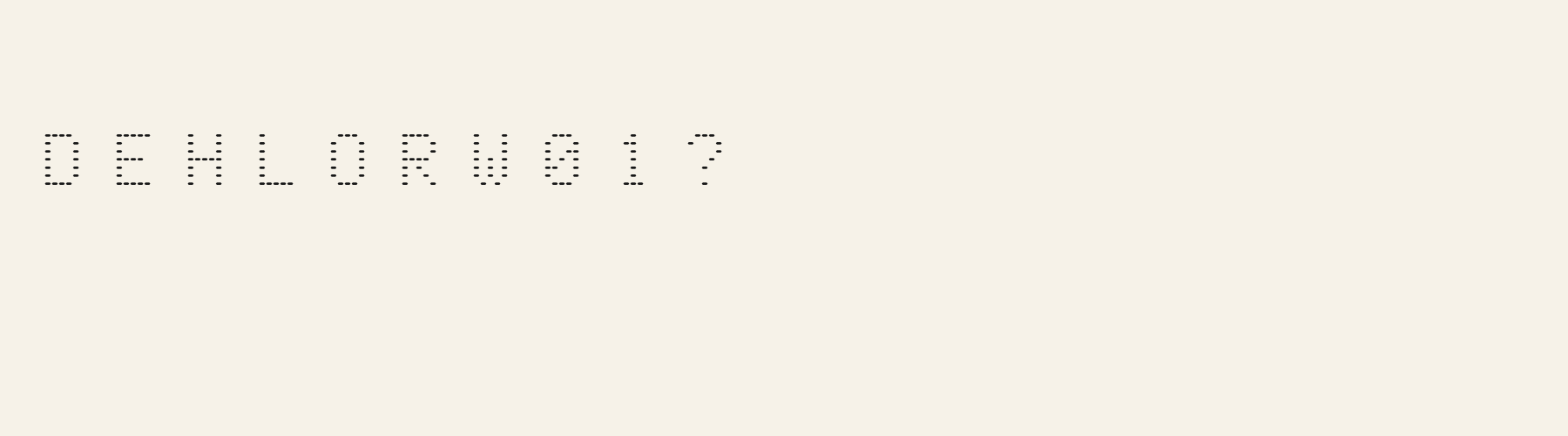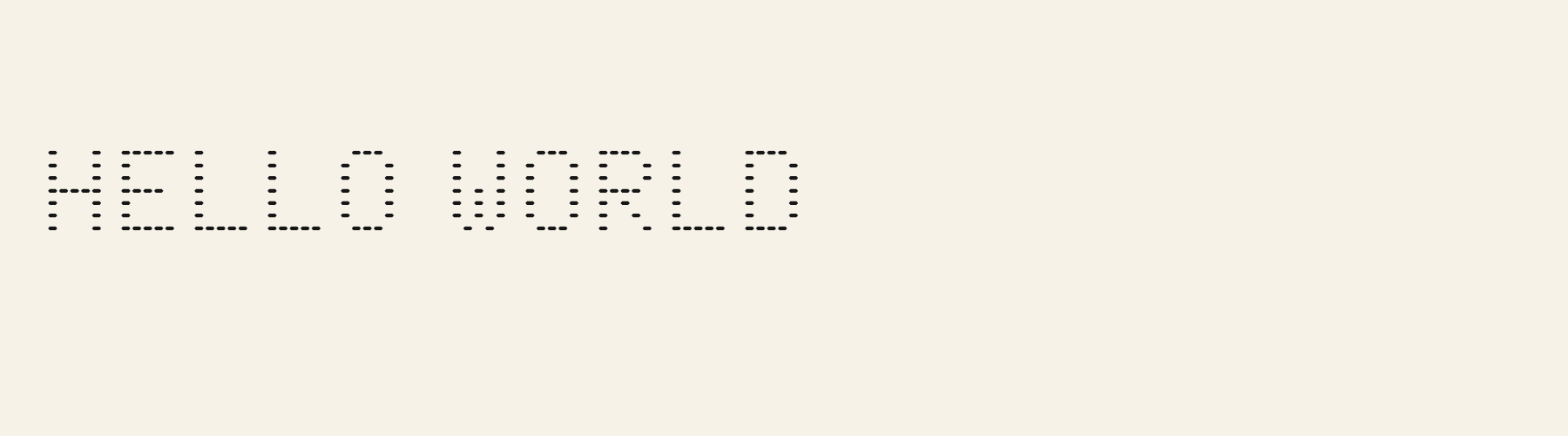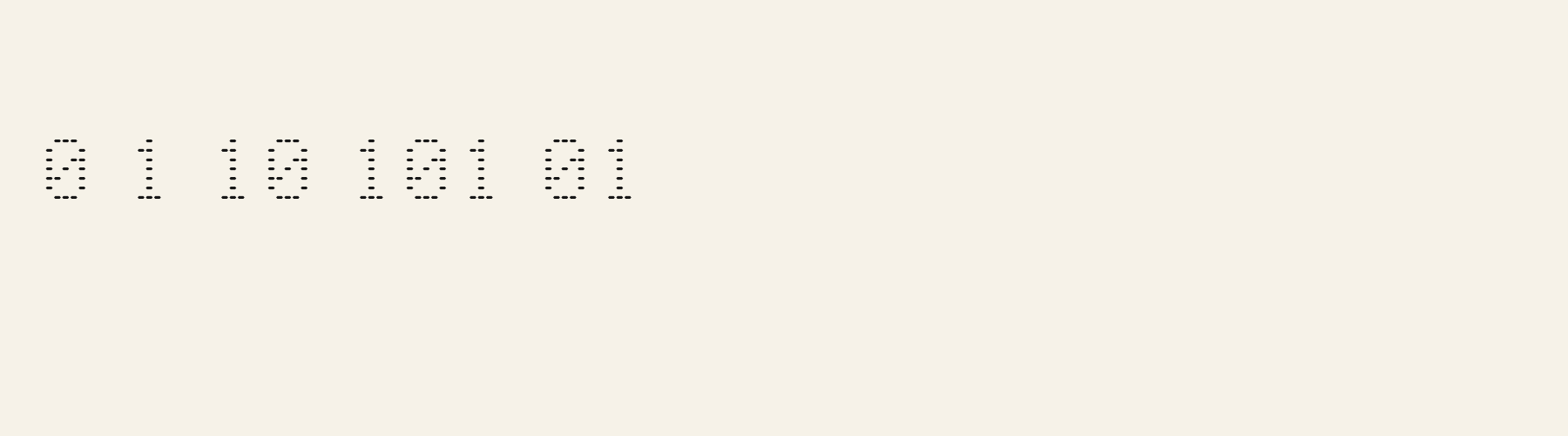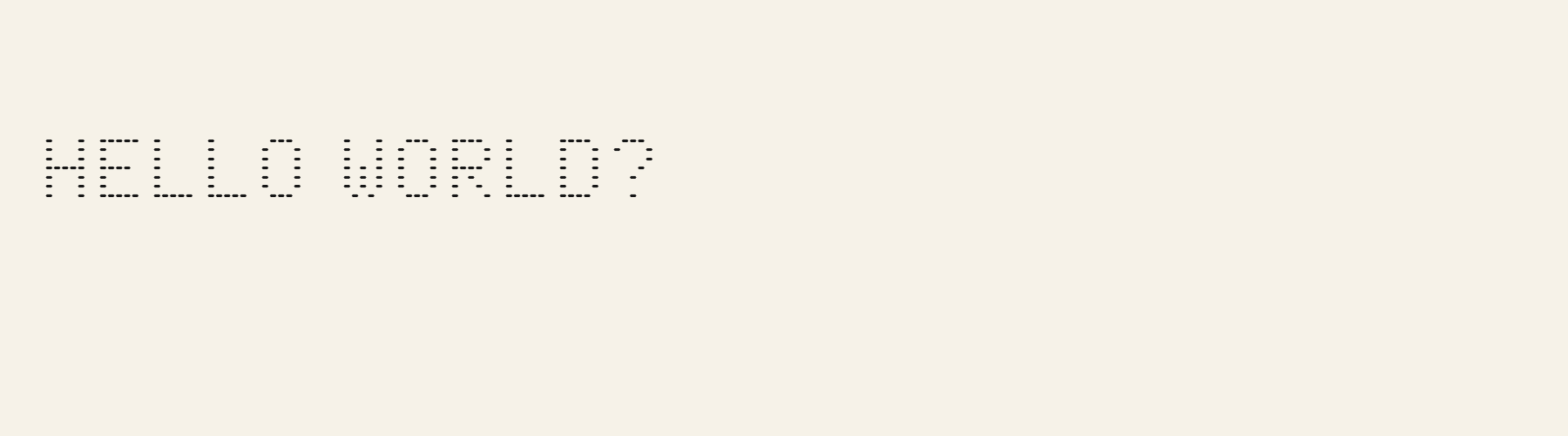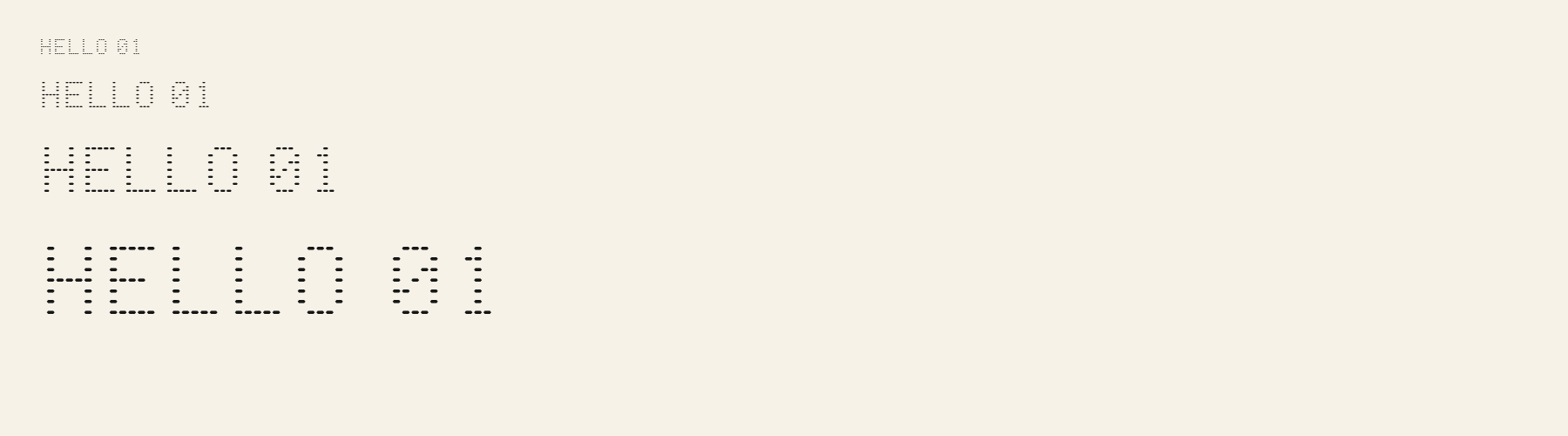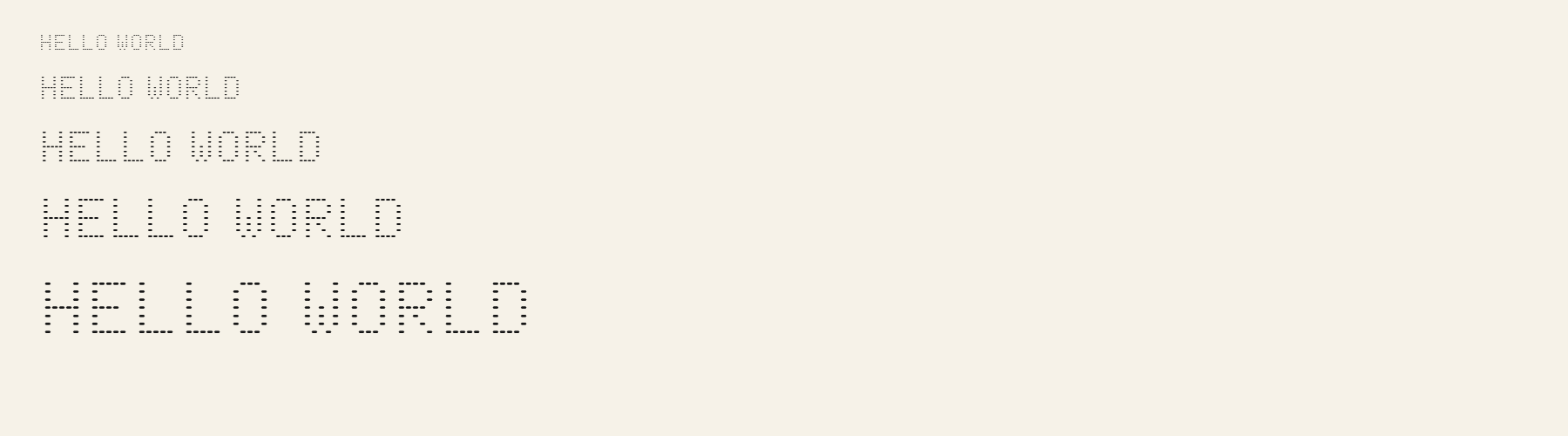
Pixel Lcd Segment Stacked Dash Display Font
Pixel Lcd Segment draws its letters with short horizontal dashes, leaving clear gaps along stems, bowls and crossbars.
Stacked Dash Display Letterforms
Pixel Lcd Segment draws its letters with short horizontal dashes, leaving clear gaps along stems, bowls and crossbars. The O forms a tall oval with inset corners, while the H stretches a dashed crossbar between separated vertical stacks. The R breaks its descending leg into marks that step outward from the bowl. Rounded dash ends give these rigid arrangements a softer edge. Broad spacing and sparse ink keep the line airy, even in capitals. The result has a quiet electronic character suited to instrument readouts and spare display lettering.
Test your actual Latin wording for the stepped R leg, the central stack in W and the distinction between O and zero. Inspect punctuation and dash gaps after resizing or reversing colors. For other scripts, verify character availability and appearance separately.
Try this face for short headings or device labels, with a plain sans serif handling explanations and supporting text. Its separated dashes and broad spacing offer a clear visual contrast with continuous strokes; proof the combination in your actual layout.
Pixel Lcd Segment: letterforms and layout
Compare smaller and larger previews to inspect the rounded dash ends and gaps between rows. Check whether the central marks of W and the stepped leg of R remain distinct in your intended setting.
Pixel Lcd Segment spreads the words across a wider line, using rounded horizontal dashes with generous vertical gaps. Choose it when the separated marks and airy electronic texture are central to the composition.
Pixel Lcd Segment font in use
Product label. Separated horizontal dashes give a device label an electronic character, with ample empty space around the letter shapes. AFTER HOURS
Poster. The sparse dashed strokes lend a late night event title a restrained electronic mood within a spacious poster composition. SIGNAL LOST
Book or album cover. Rounded dashes and interrupted outlines give a cover title a quiet technological texture that leaves room for surrounding artwork.
About Pixel Lcd Segment
The lowercase is as tall as the capitals: its x-height measures 100% of the cap height, level with the tallest of the 13 pixel fonts. Ascenders on b, d, h, k and l line up with the capitals (100% of their height), and g, j, p, q and y barely drop below the baseline. It sets wide: an average lowercase letter, spacing included, is 92.7% as wide as the capitals are tall (an average capital, 92.7%), 14.3% more than the median for pixel fonts, so the same words take a longer line. The o is an upright oval, 0.67 times as wide as it is tall, and every capital has the same width. O stands exactly as tall as H and sits on the baseline, with no overshoot.
Ink covers 6.7% of each lowercase letter's box (its advance width by the cap height), the lightest of all 13 pixel fonts. Strokes change thickness with direction: the sides of o and O are 2.5 times as thick as their tops and bottoms.
Its 159 characters include 116 Latin letters, plus 43 figures, punctuation marks and symbols; 64 of the Latin letters are accented or special forms beyond A to Z. The word space measures 48.2% of the cap height, and the blank space either side of a lowercase letter takes up 27.5% of its width. The font carries no kerning, so spacing comes from each letter’s own side bearings. All ten figures share one width, so columns of numbers line up.
- What fonts pair well with Pixel Lcd Segment?
- Grid Sans (sans serif), Pinched Counter Grotesk (sans serif) and Funk Wide (display) are drawn on a different letter structure, so Pixel Lcd Segment can carry the headings while one of them sets the text. Each has its own page with a type tester for trying the pair.
- Which fonts are similar to Pixel Lcd Segment?
- In the same pixel style: Pixel Scoreboard Narrow (heavier strokes, 15% narrower); Pixel Console Square (heavier strokes); Console Pixel Mono (heavier strokes, lower x-height).